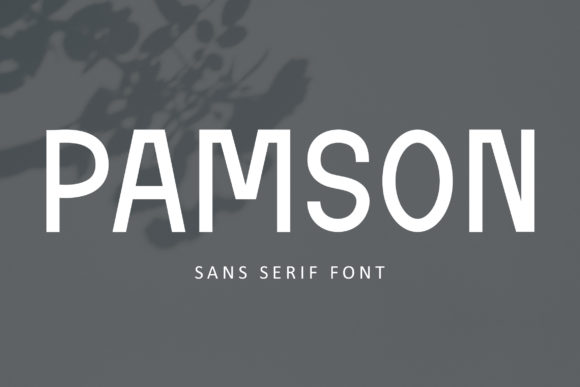
Journey into the realm of literary elegance with Pamson Font, an exquisite sans serif creation that echoes the profound essence of poetry. Its bold strokes and unpretentious charm blend harmoniously to produce a font that is both striking and effortlessly readable. Pamson is more than just a font; it's an ode to the artistry of the written word.
Immerse yourself in the world of poetic expression, where words dance and emotions ignite. Pamson Font captures the essence of heartfelt verses, allowing your poetic creations to soar. Whether you're a seasoned wordsmith or just starting your literary voyage, Pamson will become your trusted companion, guiding you through the enchanting landscapes of verse.
With its clean lines and unassuming presence, Pamson Font complements any poetic style. Whether you're crafting sonnets, haikus, or free verse, Pamson gracefully adapts, enhancing the beauty of your words without overpowering them. Experience the joy of seamless expression as you pour your heart onto the page, knowing that Pamson will faithfully carry your message to the world.
But Pamson's allure extends far beyond the realm of poetry. Its versatility knows no bounds, making it a font of choice for a wide range of creative endeavors. From captivating logos that leave a lasting impression to eye-catching headlines that demand attention, Pamson effortlessly elevates your designs with its timeless appeal and unmatched legibility.
Unleash your creativity and explore the countless possibilities Pamson Font offers. Create letterheads that exude professionalism, signage that commands attention, and labels that exude elegance. Whether you're crafting posters that ignite imaginations or badges that spark conversation, Pamson is your essential tool for creating designs that resonate and inspire.
In a world often saturated with visual noise, Pamson Font stands as a beacon of clarity and sophistication. Its simple yet striking appearance cuts through the clutter, ensuring your message is not just heard, but felt. Experience the transformative power of Pamson and elevate your creative projects to new heights of excellence.